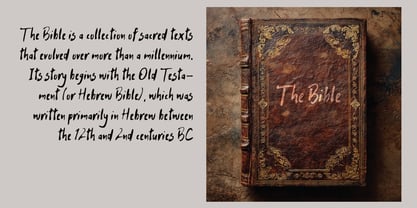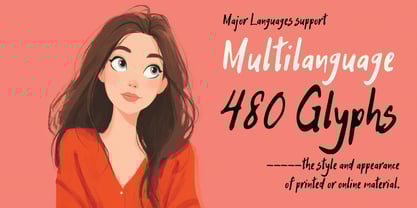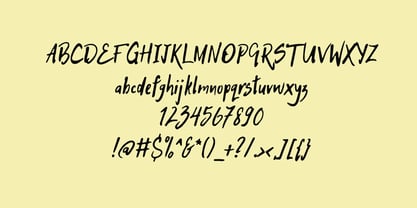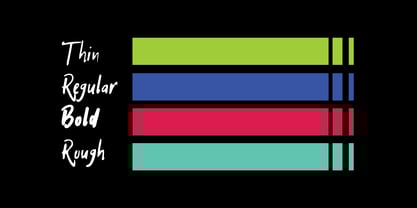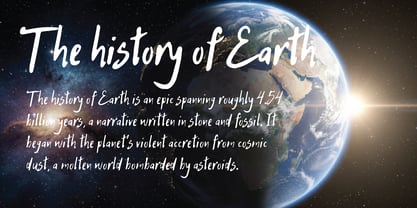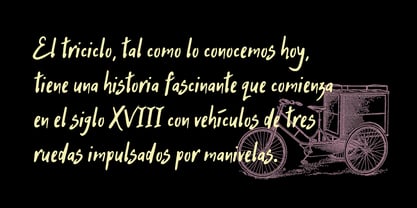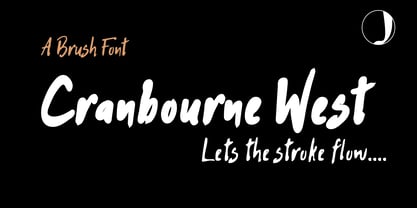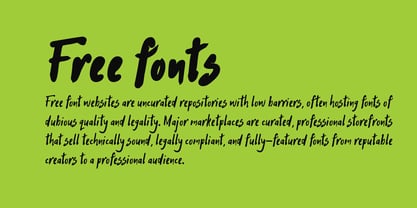
Cranbourne west
by Jadugar Design Studio
The Cranbourne west Font Family was designed by Jadugar Design and published by Jadugar Design Studio. Cranbourne west contains 4 styles and family package options.
Cranbourne West: The Unrefined Spirit of the Open Road Cranbourne West is a brush script font that captures the raw, untamed energy of a desert highway and the confident scrawl of a hand-painted sign. It doesn’t strive for perfection; it strives for character. With its organic texture, dynamic stroke variation, and gritty authenticity, Cranbourne West brings a powerful sense of adventure and artisan craftsmanship to any design. This versatile family comes in four distinct styles, each telling a different part of the story: Cranbourne West Rough This is the soul of the font. Unapologetically textured and gritty, the Rough variation looks like it was brushed onto weathered wood or sun-bleached concrete. It’s perfect for headlines that need immediate impact, logo branding for artisan products, or any project that demands a truly hand-made, rebellious feel. Cranbourne West Bold Confident and commanding, the Bold variation retains its organic brush strokes but with a cleaner, more solid presence. It’s the workhorse for posters, album covers, and branding where you need legibility without losing that raw, energetic vibe. It shouts with a clear, powerful voice. Cranbourne West Regular The balanced heart of the family. This style offers the classic Cranbourne West look with smooth, flowing strokes that are highly legible even at smaller sizes. Ideal for product packaging, quotes, social media graphics, and anywhere you want to inject casual, approachable coolness. Cranbourne West Thin An elegant and delicate surprise. The Thin variation captures the grace of a fine brush, offering a sophisticated whisper. Its high-contrast strokes and refined feel make it perfect for fashion branding, wedding invitations, or as a stunning contrast to its bolder siblings in layered compositions. The Complete Package: Whether you’re branding a craft brewery, designing a music festival poster, or creating a logo for a boutique hotel, Cranbourne West provides the tools to create with authenticity and edge. Its cohesive yet distinct variations work in harmony to build hierarchy, texture, and a compelling narrative.